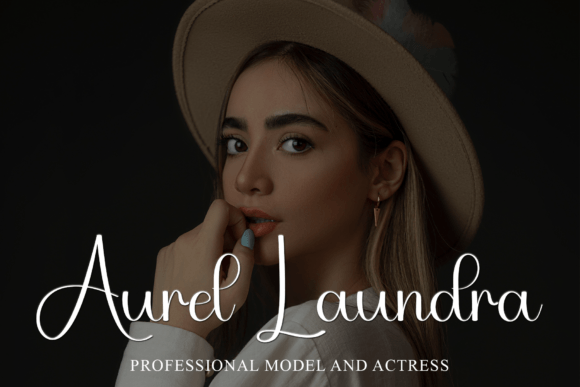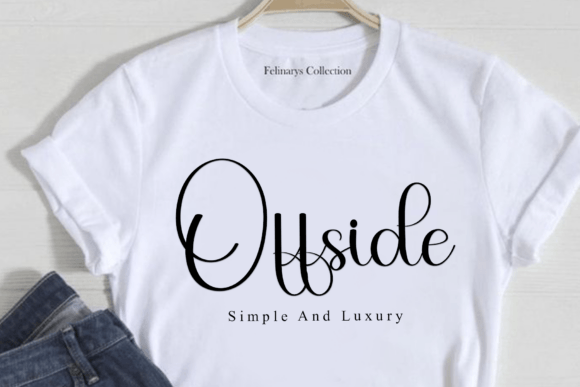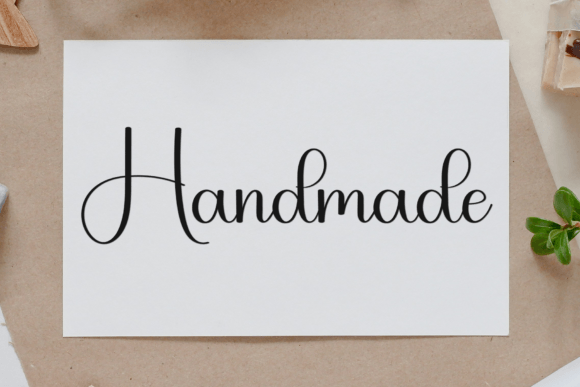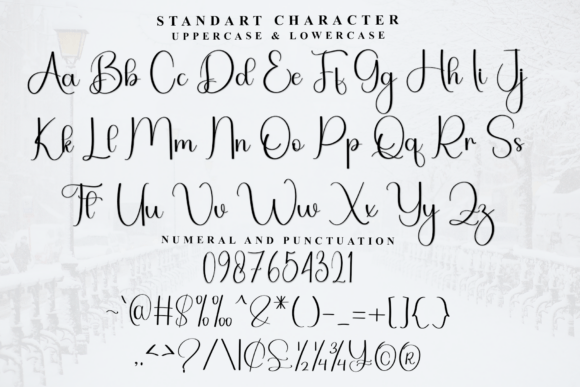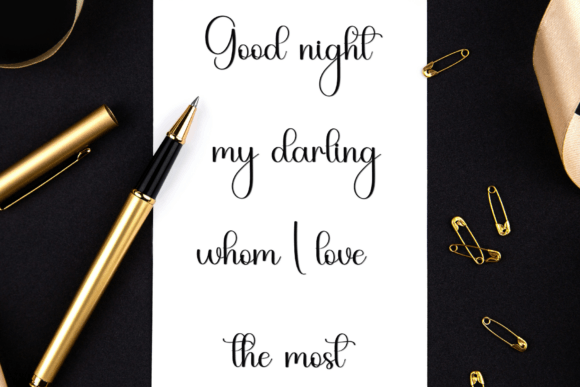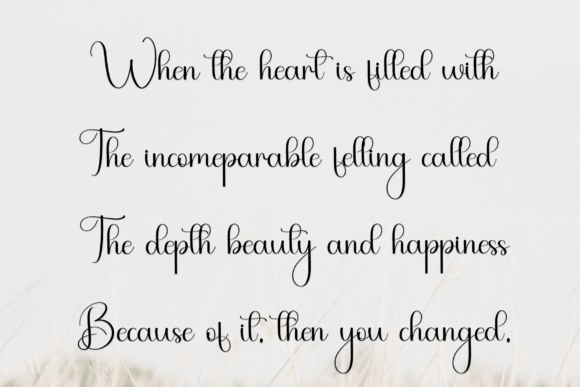
Babylone Font: The Ultimate Choice for Creative and Friendly Designs
Are you looking for a font that can add a touch of warmth and friendliness to your designs? Look no further than the Babylone Font. This casual and creative font is perfect for personal projects, invitations, social media graphics, and any other design that requires a relaxed and approachable feel.
The Characteristics of Babylone Font
The Babylone Font is characterized by its round, playful strokes that create a sense of fun and uniqueness. Its hand-drawn aesthetic is charming and adds a personal touch to any design. The font’s relaxed and approachable feel makes it perfect for designers who want to create a connection with their audience.
What Makes Babylone Font Special?
Perfect for Personal Projects and Designs
The Babylone Font is perfect for personal projects, such as creating invitations, social media graphics, and blog posts. Its friendly and approachable feel makes it ideal for designers who want to create a connection with their audience. Whether you’re designing for a personal blog, a small business, or a personal project, Babylone Font is a great choice.
Use Babylone Font for:
• Personal projects and designs
• Invitations and greeting cards
• Blog posts and articles
• Branding and packaging designs
Why Designers and Crafters Love Babylone Font
Designers and crafters love Babylone Font for its unique and charming aesthetic. The font’s hand-drawn feel adds a personal touch to any design, making it stand out from more traditional fonts. Additionally, the font’s compatibility with various design software makes it a practical choice for designers who work with different tools.
Tips for Using Babylone Font Effectively
Here are some tips for using Babylone Font effectively in your designs:
• Use it for headlines and titles to add a touch of personality to your design
• Pair it with other fonts to create a unique and interesting contrast
• Experiment with different colors and textures to add depth and interest to your design
• Use it consistently throughout your design to create a cohesive look
In conclusion, Babylone Font is a versatile and charming font that is perfect for designers and crafters who want to add a touch of warmth and friendliness to their designs. Its unique and hand-drawn aesthetic makes it stand out from more traditional fonts, while its compatibility with various design software makes it a practical choice for designers who work with different tools.
Whether you’re designing for a personal project, a small business, or a personal blog, Babylone Font is a great choice. So why not give it a try and see how it can elevate your designs?